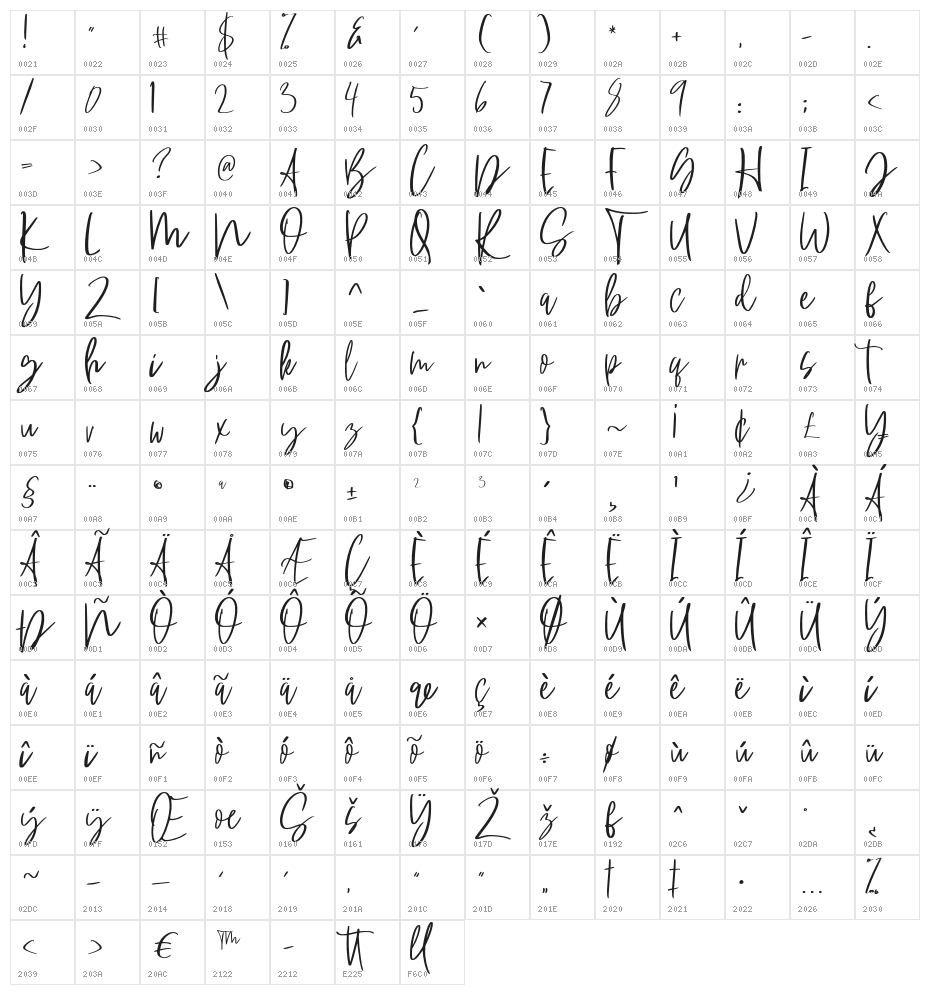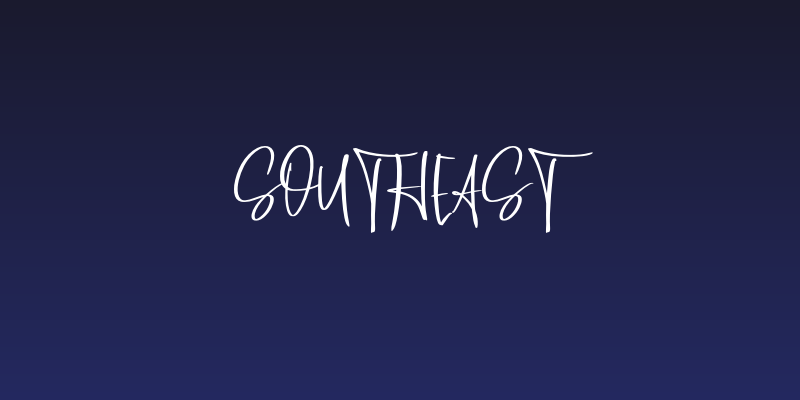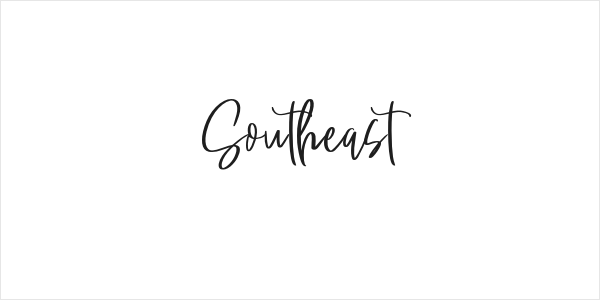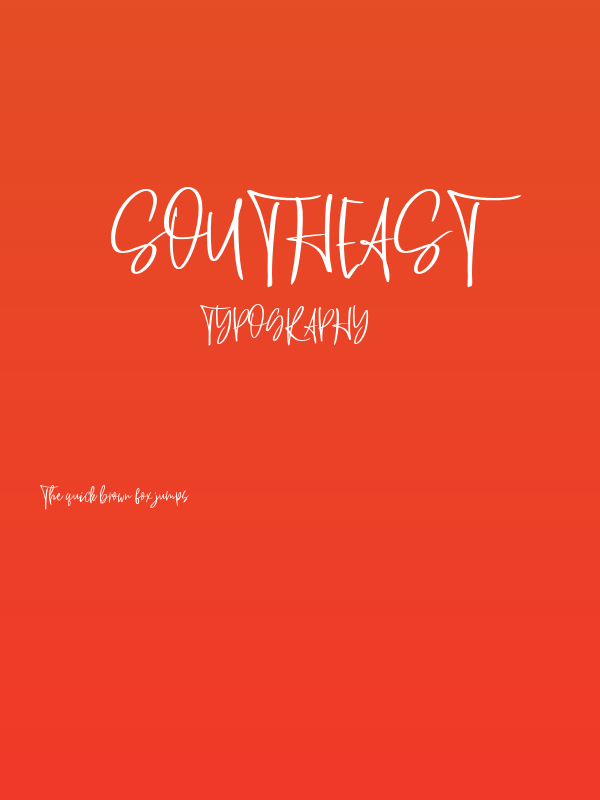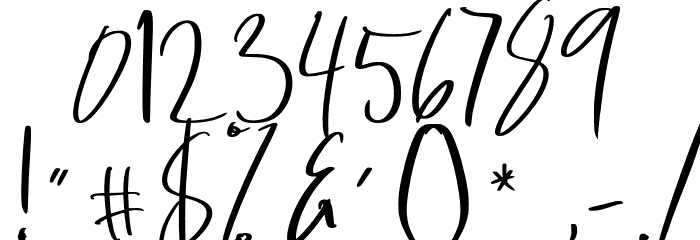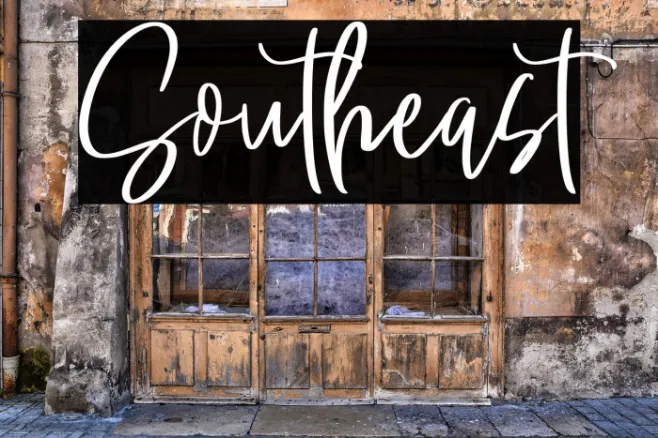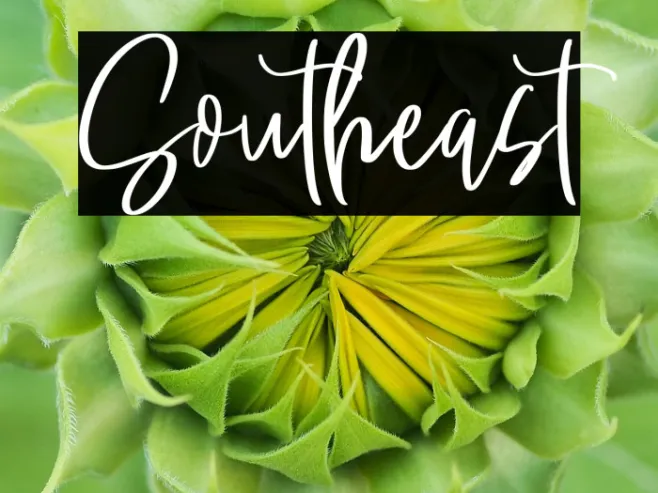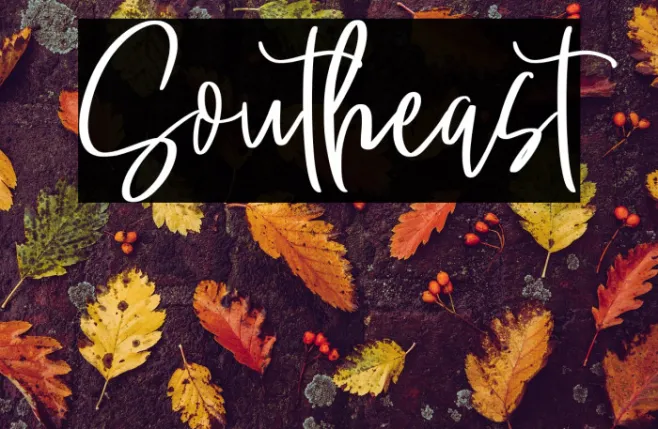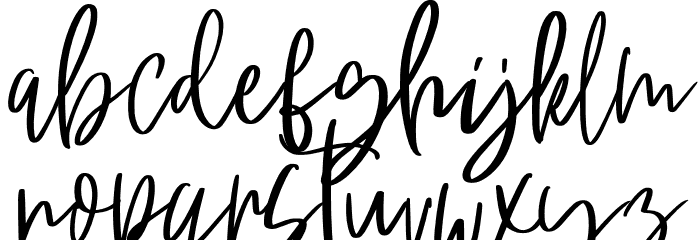
Southeast Font
Southeast Description
This font exudes a lively and expressive character, reminiscent of handwritten script with a modern twist. The letters are fluid and dynamic, with a natural flow that mimics the movement of a pen on paper. Each character is distinct, yet they all harmonize to create a cohesive look. The uppercase letters are bold and confident, while the lowercase letters maintain a playful and approachable feel. The numbers and special characters are crafted with the same attention to detail, ensuring consistency throughout. The strokes vary in thickness, adding a sense of rhythm and energy to the text. This font is perfect for projects that require a personal touch, such as invitations, greeting cards, or branding materials that aim to convey creativity and warmth.